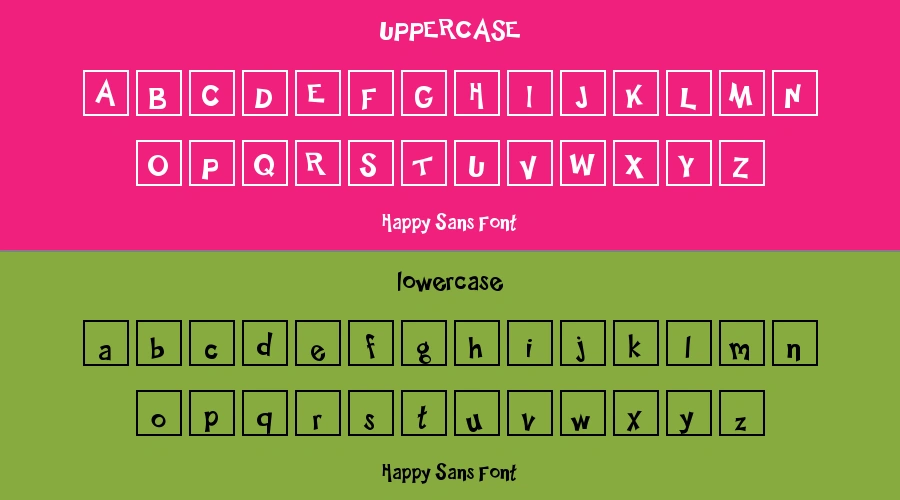
About Happy Sans Font
Happy Sans Font embodies typographic excellence through its masterful combination of contextual swashes and optical harmony. Created for scientific journals, this typeface delivers exceptional craftsmanship and user trust across all applications. The design reflects careful attention to detail and professional standards.
Advanced capabilities include distinctive monoline strokes and versatile tabular figures, giving designers creative control. When used in pull quotes, Happy Sans Font exhibits remarkable numerical alignment. The harmonious balance between proportion and emotional resonance sets this typeface apart.